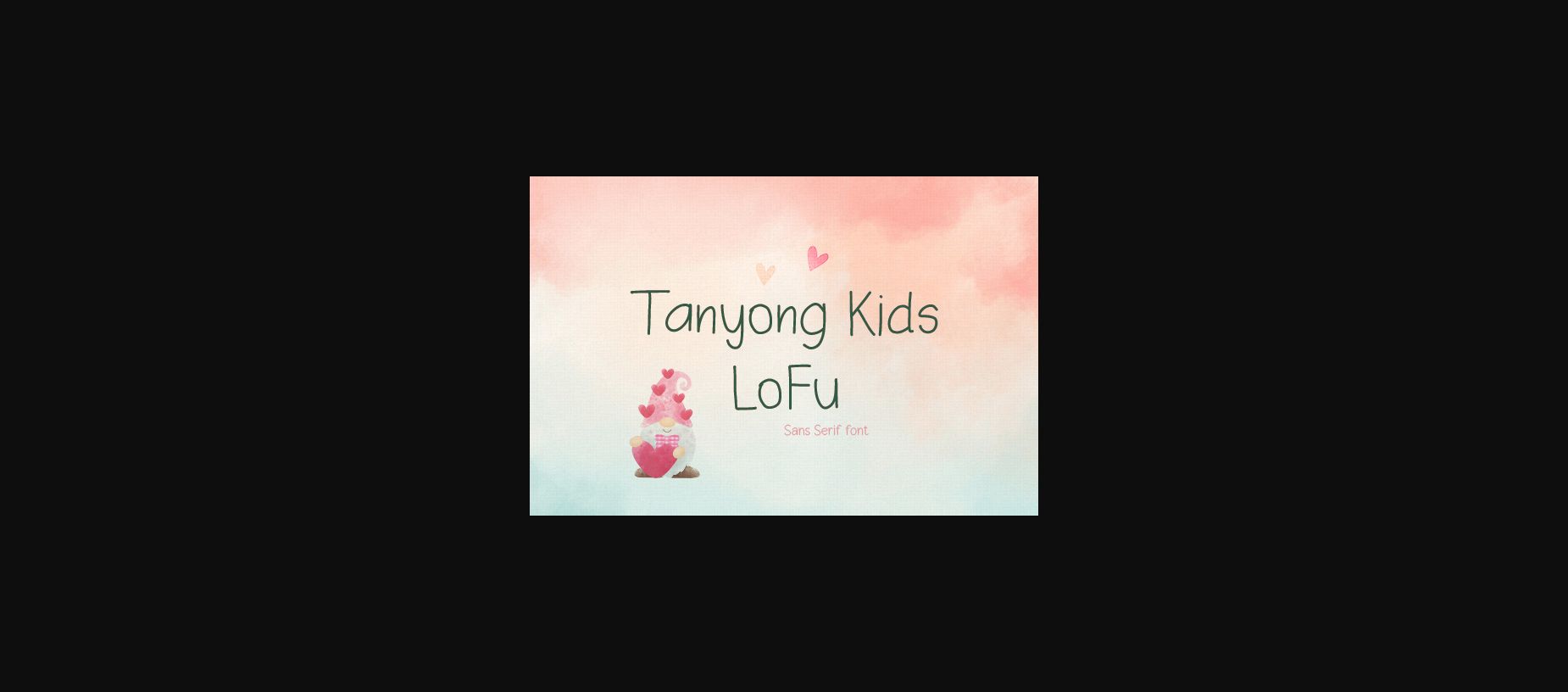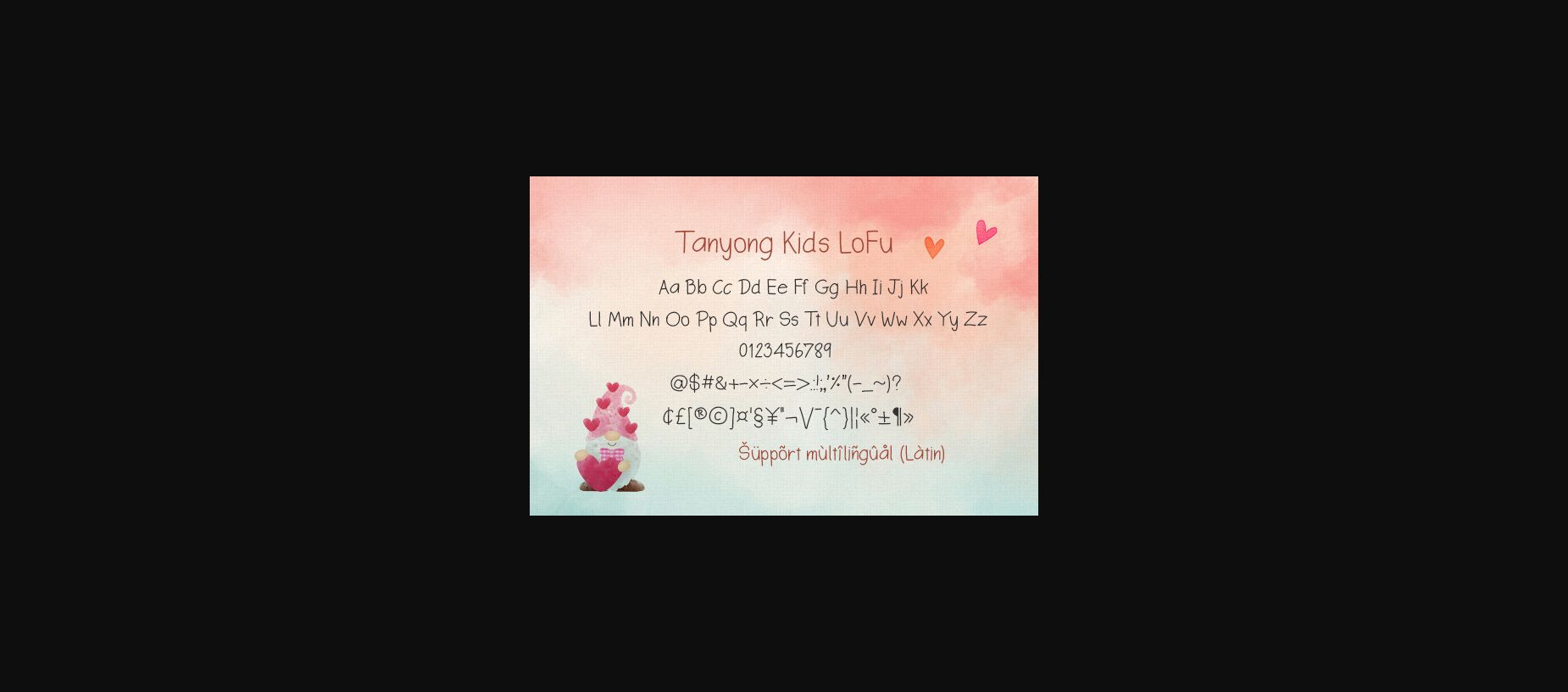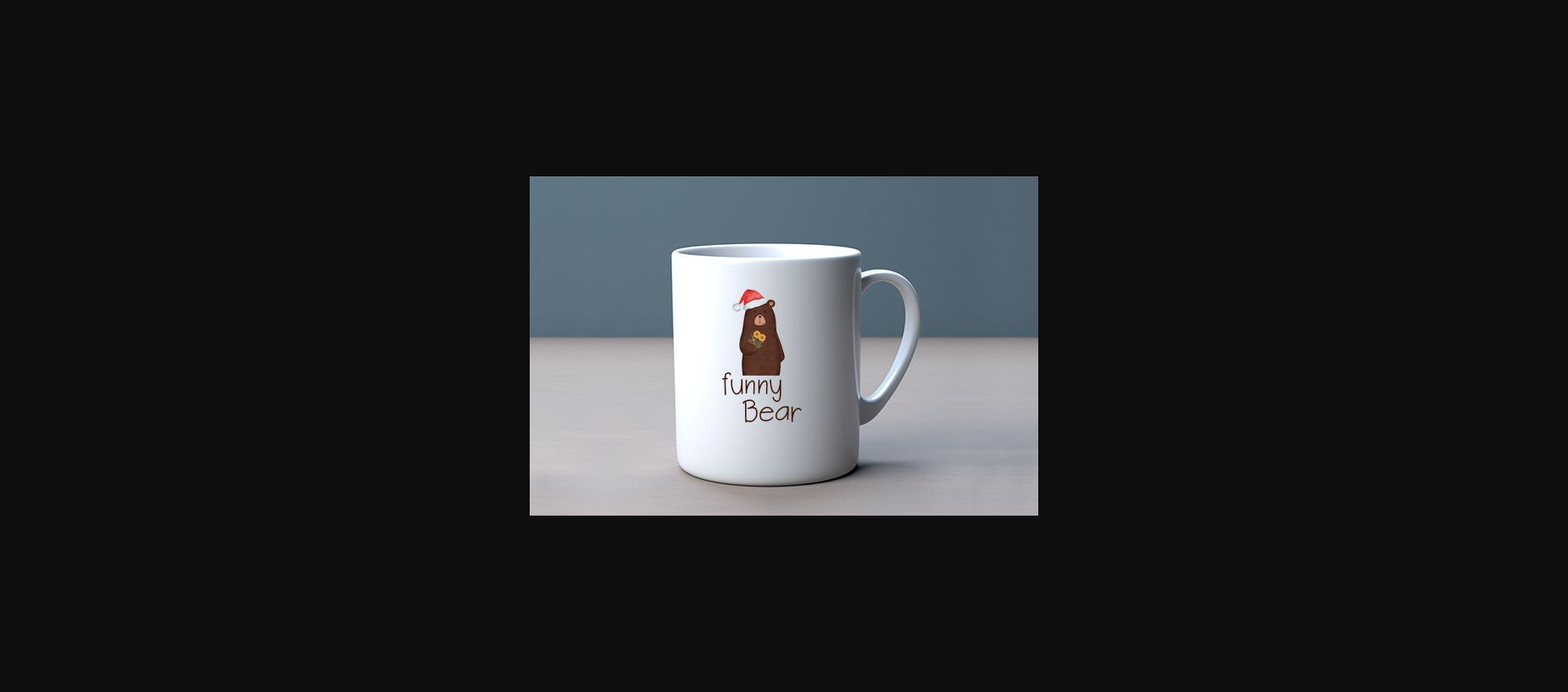
About Tanyong Kids Lofu Font
Tanyong Kids LoFu is a minimal, cute and Good mood sans serif font. It would be awesome for your fun projects or diary planner. It can easily be matched to an incredibly large set of projects, diary planner, children themed designs, invitations, Fall, Halloween, Christmas, posters, blogs, clothing, greeting cards, social media posts and many more!